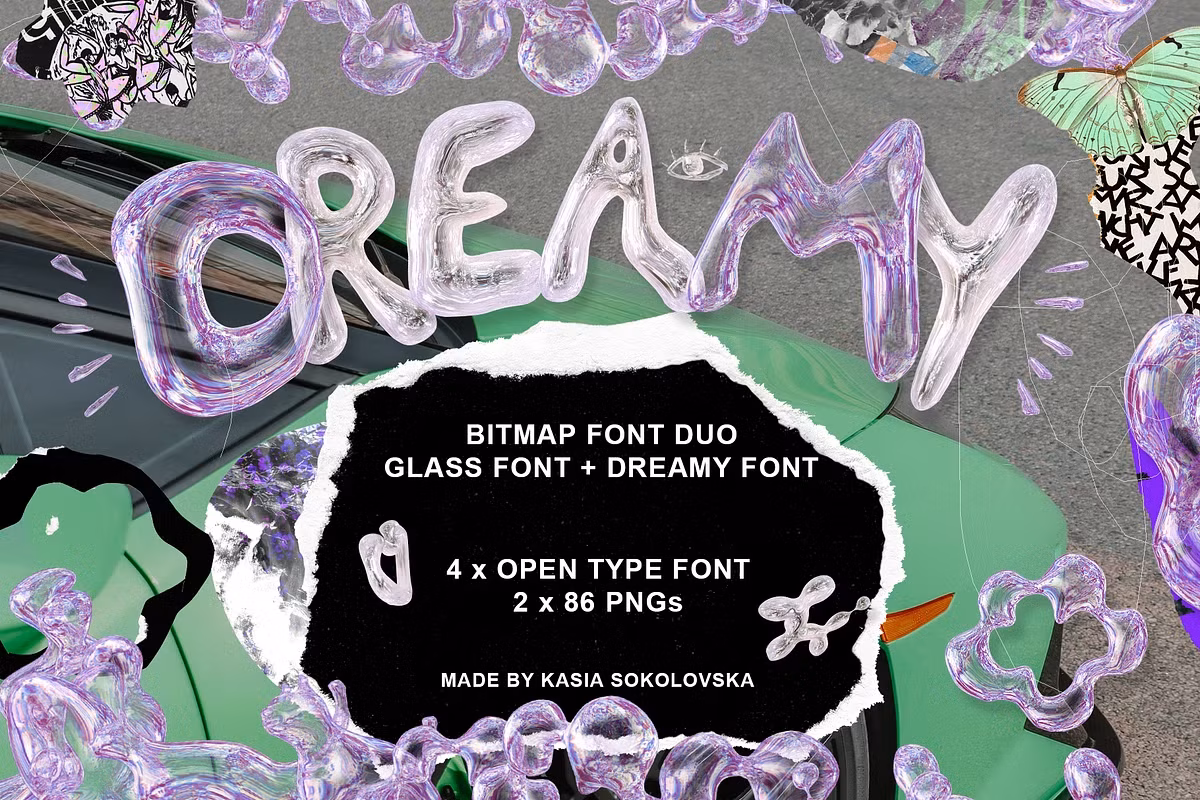
Chrome + Transparent Glass SVG Fonts Free Download
Chrome + Transparent Glass SVG Fonts Free Download is a cutting-edge typeface set featuring high-resolution textures that mimic shiny chrome and sleek glass effects. Ideal for futuristic branding, tech designs, posters, and eye-catching titles, these SVG fonts bring stunning visual depth and realism to your typography. Please note that you must purchase this font for commercial use, but it is available as a free download for testing purposes. Transform your designs with Chrome + Transparent Glass SVG Fonts Free Download, and add a bold, modern finish with dazzling metallic and transparent styles.